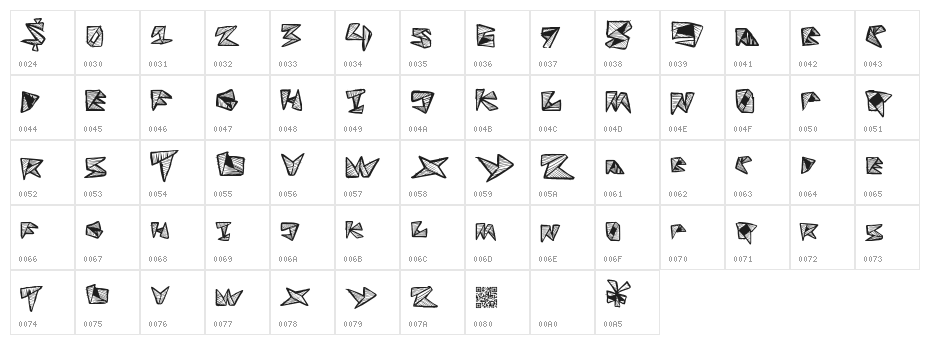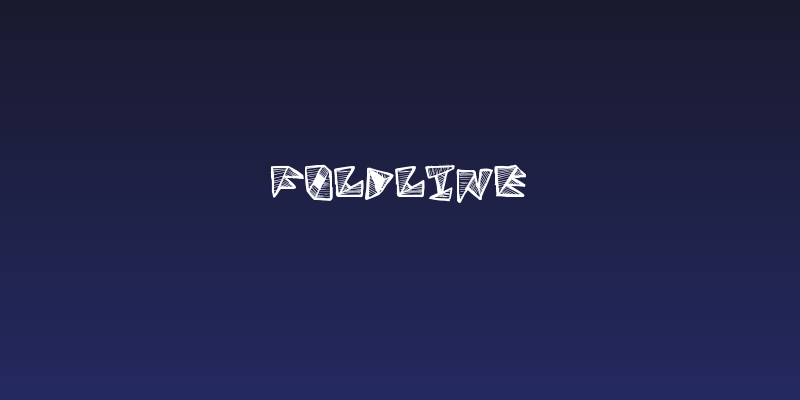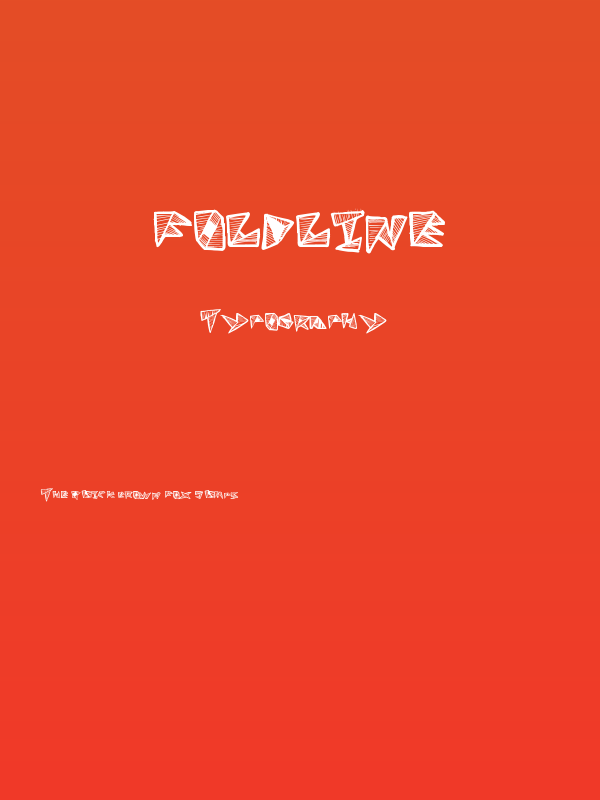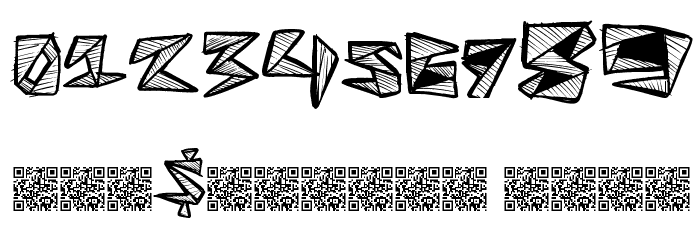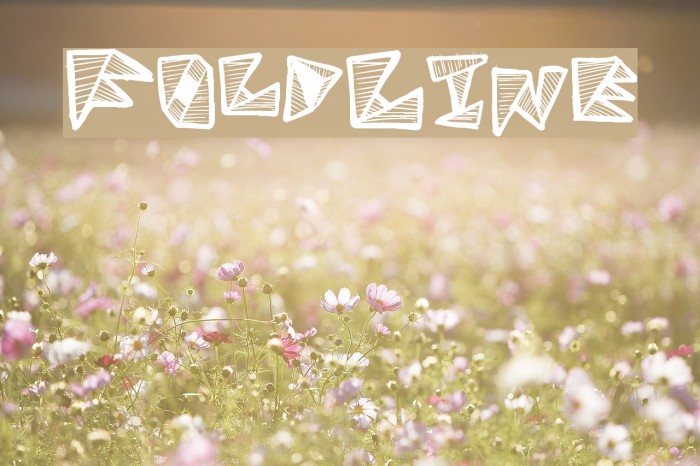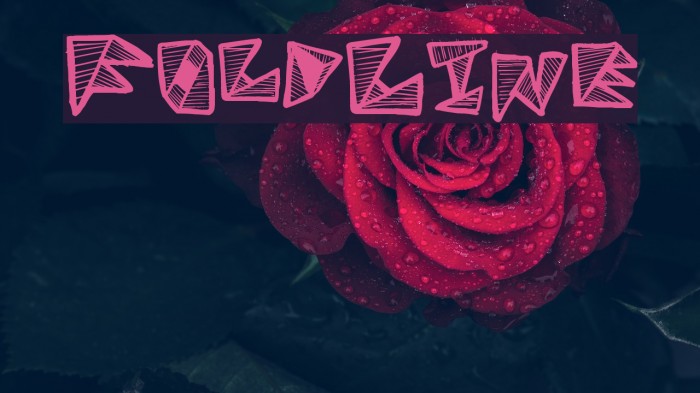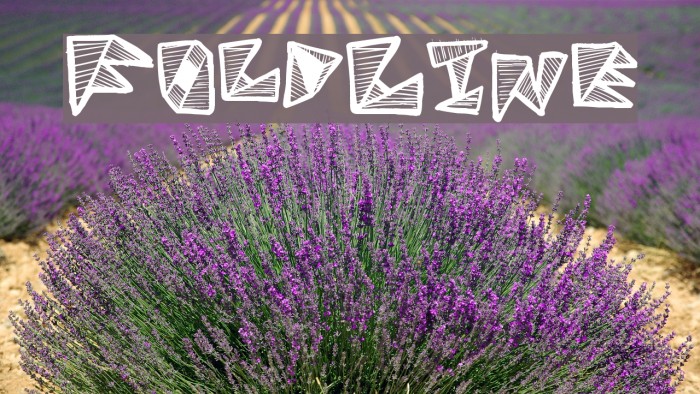
FoldLine Font
FoldLine Description
This font features a bold, geometric style with a hand-drawn, sketch-like appearance. Each character is composed of angular lines and sharp edges, giving it a dynamic and edgy look. The letters are filled with cross-hatching patterns, adding texture and depth. The overall design is reminiscent of graffiti or street art, making it stand out with its unique and artistic flair. The uppercase and lowercase letters maintain a consistent style, while the numbers and special characters follow the same design principles, ensuring a cohesive look across all elements. This font is perfect for projects that require a bold statement and a creative touch.
| Overall Style | Modern, Artistic |
| Proposed Projects | Ideal for posters, album covers, street art designs, and creative branding projects. |